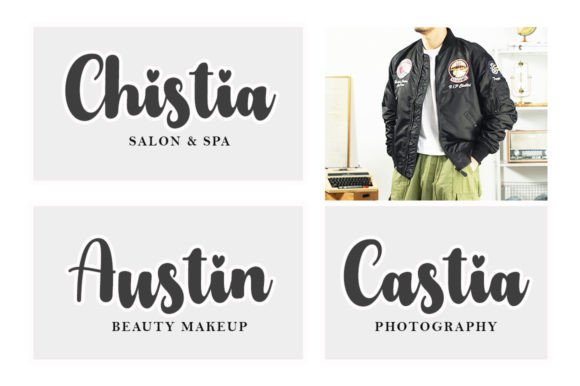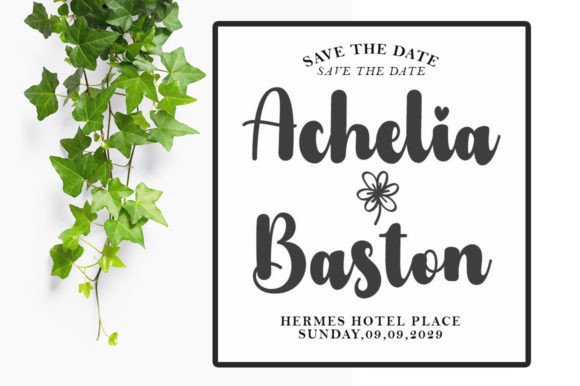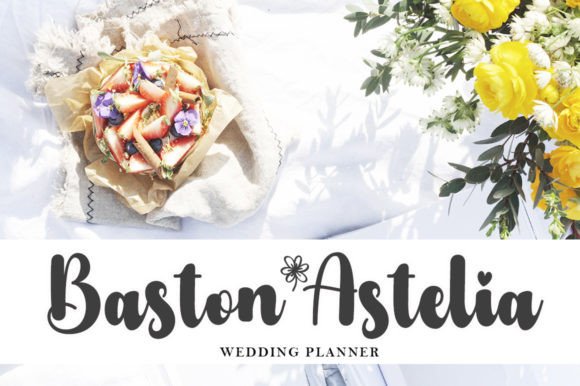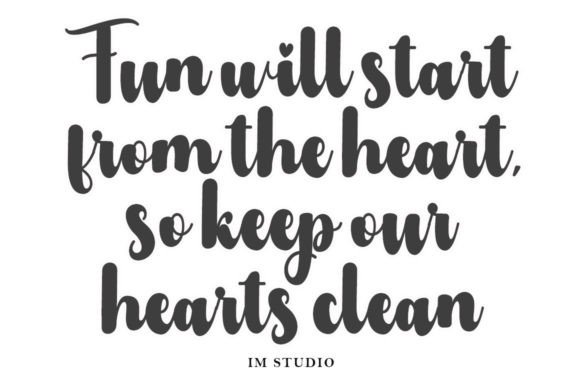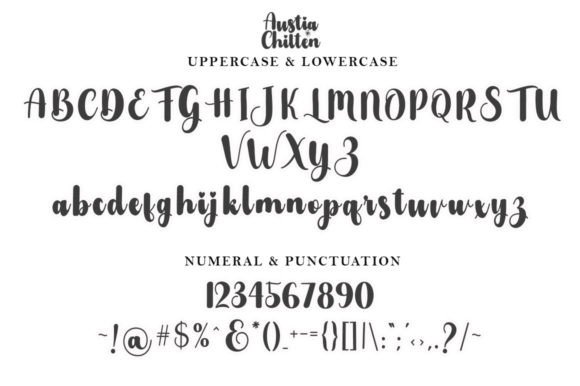
Austia Chilten Font: The Perfect Handwritten Touch for Your Designs
Are you looking for a font that exudes charm and elegance? Look no further than the Austia Chilten font. This beautiful handwritten font is perfect for adding a personal touch to your designs, and it’s versatile enough to be used in a variety of projects. In this article, we’ll take a closer look at the Austia Chilten font, its features, and how you can use it to elevate your designs.
What is Austia Chilten Font?
Austia Chilten is a modern handwritten font that feels equally charming and elegant. Its unique and flowing script makes it perfect for designs that require a personal touch. The font is designed to look like it was written by hand, with subtle imperfections and variations in lettering that give it a human feel.
Features of Austia Chilten Font
The Austia Chilten font has several features that make it stand out from other fonts. Some of its key features include:
- Handwritten look: The font has a beautiful handwritten look that makes it perfect for designs that require a personal touch.
- Elegant and charming: The font exudes elegance and charm, making it perfect for designs that require a sophisticated look.
- Versatile: The font can be used in a variety of projects, from wedding invitations to business cards.
- Easy to read: Despite its handwritten look, the font is easy to read and understand.
Uses of Austia Chilten Font
The Austia Chilten font is versatile and can be used in a variety of projects. Some of the most popular uses of the font include:
- Wedding invitations: The font is perfect for wedding invitations, adding a touch of elegance and romance to your wedding stationery.
- Thank you cards: The font is also great for thank you cards, adding a personal touch to your expressions of gratitude.
- Quotes: The font is perfect for quotes, adding a touch of elegance and sophistication to your inspirational quotes.
- Greeting cards: The font can be used in greeting cards for special occasions such as birthdays, anniversaries, and holidays.
- Logos: The font can be used to create beautiful logos for businesses, adding a touch of elegance and sophistication to your brand.
- Business cards: The font is also great for business cards, adding a personal touch to your professional networking materials.
Why Designers and Crafters Love Austia Chilten Font
Designers and crafters love the Austia Chilten font for several reasons. Some of the reasons include:
- Unique look: The font has a unique look that sets it apart from other fonts.
- Versatility: The font can be used in a variety of projects, making it a great addition to any designer’s toolkit.
- High-quality: The font is high-quality, with clear and crisp lettering that looks great in any design.
Tips for Using Austia Chilten Font
Here are some tips for using the Austia Chilten font in your designs:
- Use it sparingly: While the font is beautiful, it can be overwhelming if used too much. Use it sparingly to add a touch of elegance to your designs.
- Pair it with other fonts: The font pairs well with other fonts, so feel free to experiment with different font combinations.
- Experiment with colors: The font looks great in a variety of colors, so don’t be afraid to experiment with different colors and color combinations.
- Pay attention to spacing: Make sure to pay attention to spacing when using the font, as it can affect the overall look of your design.
| Font Name | Austia Chilten Font |
| Author | IM Studio |
The Austia Chilten font is a beautiful handwritten font that feels equally charming and elegant. Its unique and flowing script makes it perfect for designs that require a personal touch. With its versatility, ease of use, and high-quality lettering, it’s no wonder that designers and crafters love this font. Whether you’re creating wedding invitations, thank you cards, quotes, greeting cards, logos, or business cards, the Austia Chilten font is a great choice. So why not give it a try and see how it can elevate your designs?